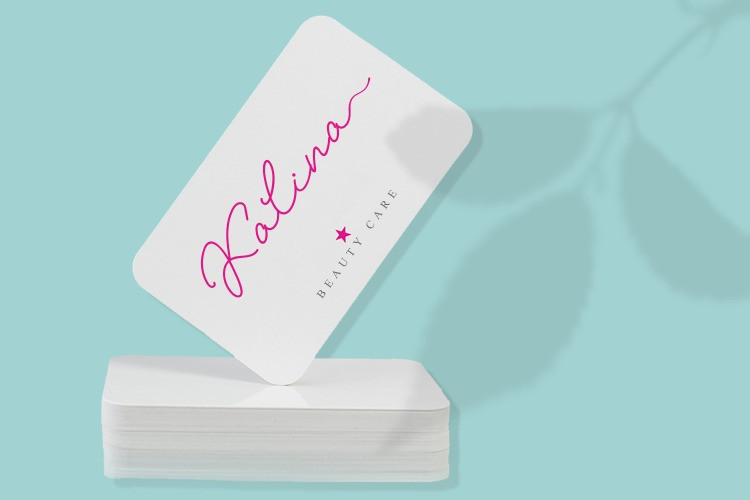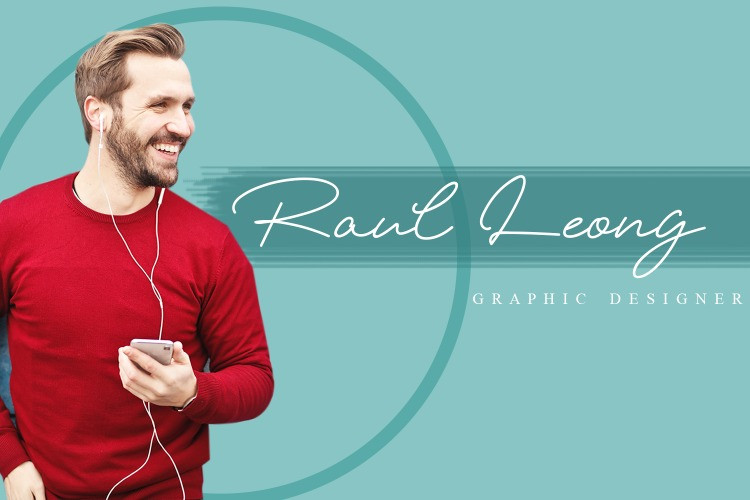
Renadar Handwritten Font
Introduced our newest product “Renandar signature font”, I hope this font is perfect for creating signature logos, watermarks for photography studios, personal branding and anything. I made it with a sense of elegance, professionalism, and very catchy